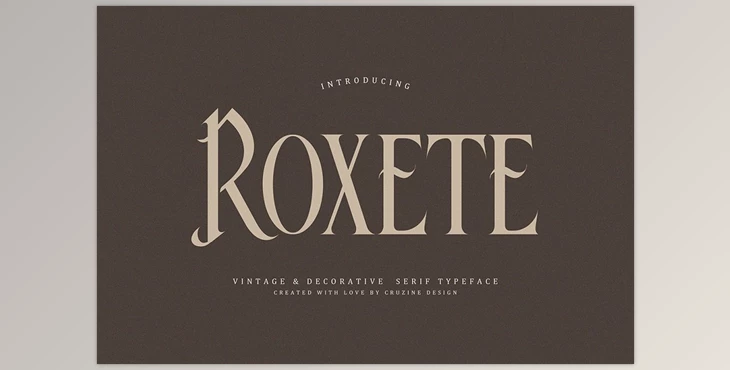
Roxete Vintage Serif Font: Vintage, decorative, retro & classy serif font. Perfect for your brand-new logo or branding.
Some great features of Roxete Vintage Serif Font:
- Perfect for retro or vintage branding projects.